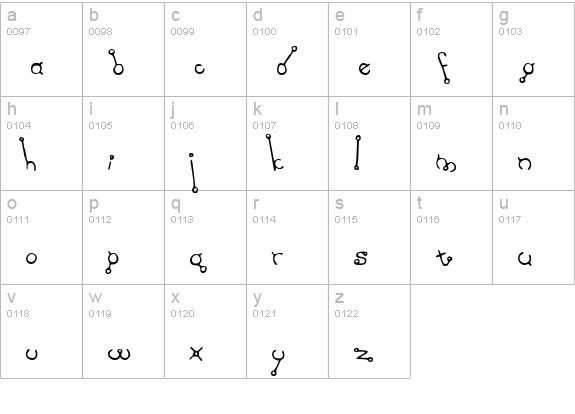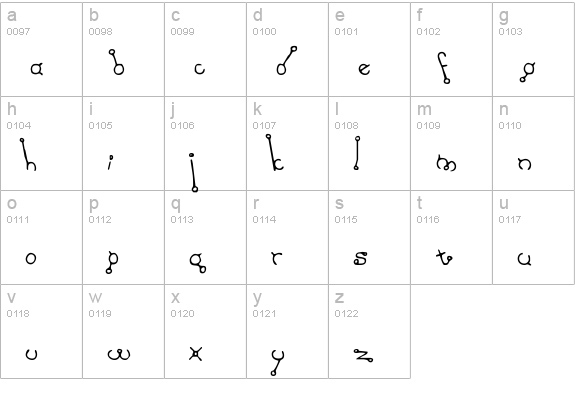
A Drink For All Ages Font Details
Introducing A Drink For All Ages font, a versatile and captivating typeface that transcends age boundaries. This unique font embodies the spirit of celebration, bringing a sense of joy and energy to any project it graces. With its playful and dynamic letterforms, A Drink For All Ages font effortlessly captures the essence of youthful exuberance, while also maintaining a timeless elegance that appeals to a wide range of audiences. Whether you're designing a children's book, a party invitation, or a bold branding campaign, this font is the perfect choice to infuse your creations with a touch of magic. Not only does A Drink For All Ages font possess an inherent charm, but it also offers the convenience of being freely available to download at FontsMarket.com. This means that designers, creatives, and enthusiasts alike can enjoy the benefits of this remarkable font without any financial barriers. Embrace the freedom to unleash your creativity and let A Drink For All Ages font take your designs to new heights. This font's versatility extends beyond its aesthetic appeal. With a wide range of weights and styles, A Drink For All Ages font offers endless possibilities for customization, allowing you to create unique compositions that truly reflect your vision. Whether you prefer a bold and impactful statement or a subtle and elegant touch, this font has the flexibility to adapt to your needs. In addition to its visual allure, A Drink For All Ages font also boasts exceptional legibility, ensuring that your message is conveyed with clarity and precision. Its carefully crafted letterforms and balanced proportions guarantee readability across various mediums, from print to digital platforms. So, why settle for ordinary when you can elevate your designs with A Drink For All Ages font? Experience the joy of creative freedom and unlock a world of possibilities with this enchanting typeface. Download it for free at FontsMarket.com and embark on a journey of endless inspiration. Cheers to the power of choice and the beauty of expression!